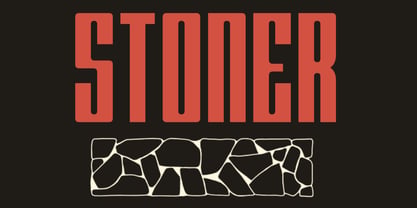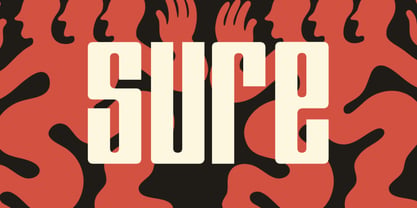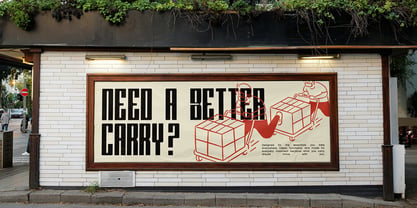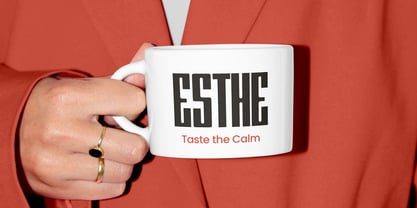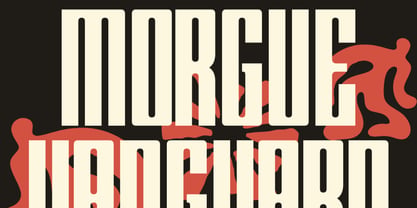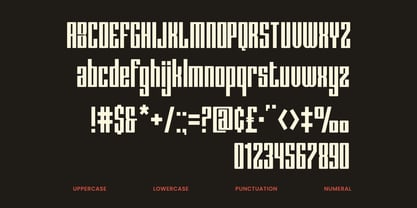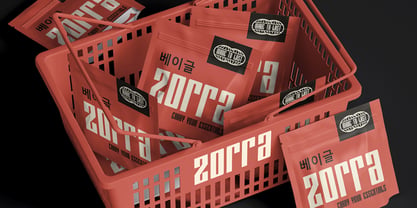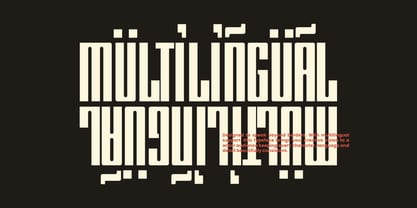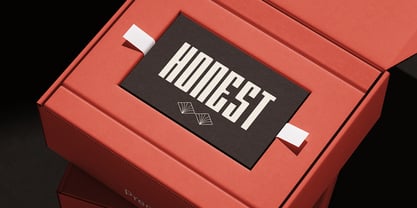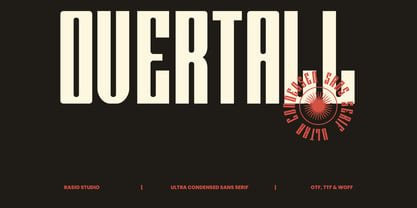
Overtall
by Rasio Studio
The Overtall Font Family was designed by Fajar Indra and published by Rasio Studio. Overtall contains 1 styles. More about this family
Overtall is an ultra condensed sans serif typeface built around exceptionally tall, narrow letterforms and a tightly controlled geometric structure. The uppercase characters have a strong vertical presence with compact horizontal proportions, allowing long words to occupy less width while still creating a bold visual statement. The lowercase set maintains the same narrow construction, while the numerals and punctuation extend the system for more complete typographic layouts.
Relevance and Use Case is perfect for designs that require strong vertical typography, compact spacing, and a distinctive editorial character. Its ultra narrow proportions are especially effective for posters, magazine covers, fashion branding, event graphics, packaging, album artwork, advertising, and large-scale headline treatments.